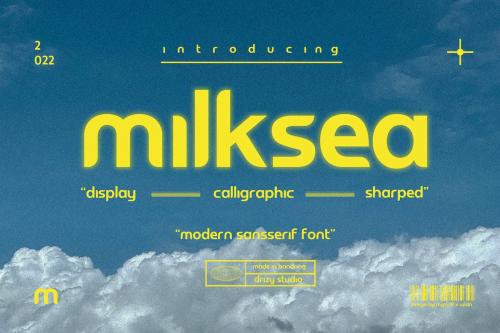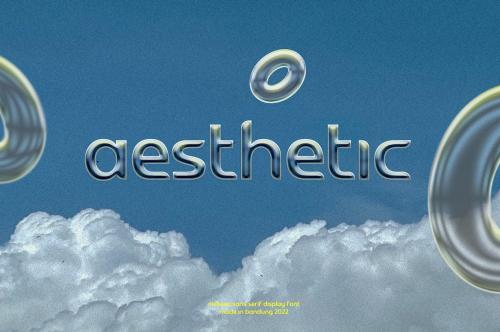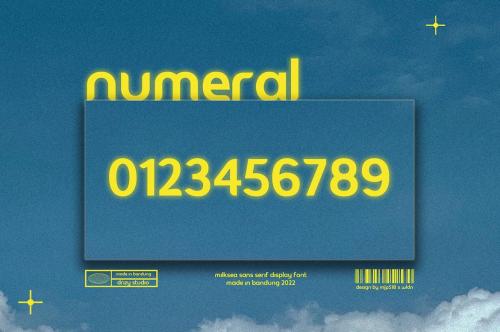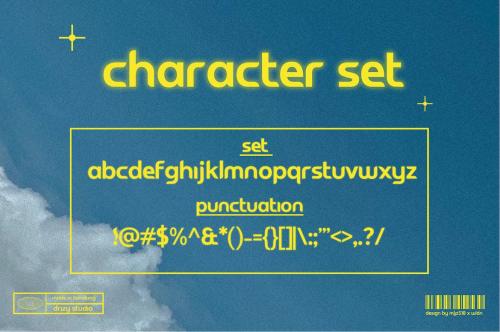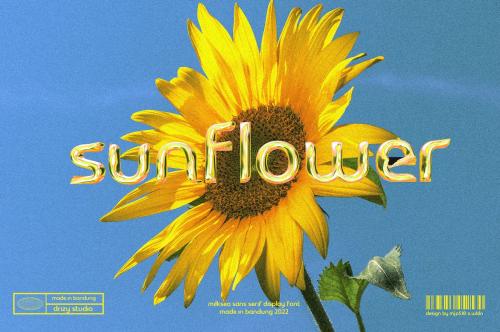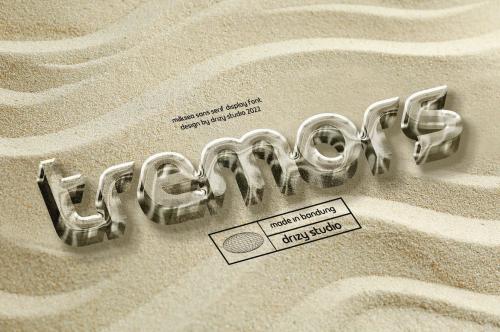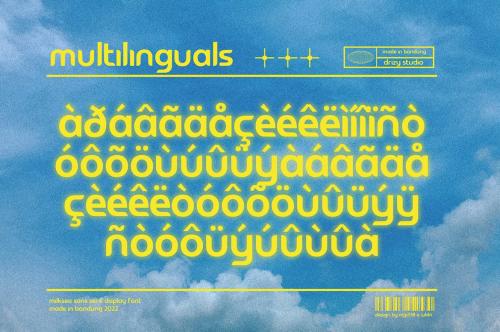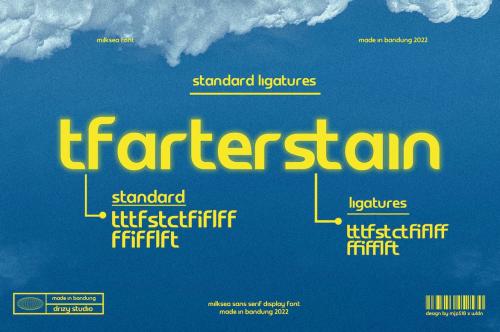
现代无衬线字体:Milksea
Milksea - Modern Sans Serif Font
Milksea is a Modern Sans Serif Font from Drizy studio. Offering all the basic styles you will need for a modern theme of your project. Milksea Features: Uppercase & Lowercase Numeral & Punctuation Multilinguals & Ligatures
Milksea is a Modern Sans Serif Font from Drizy studio. Offering all the basic styles you will need for a modern theme of your project.
Milksea Features:
Uppercase & Lowercase
Numeral & Punctuation
Multilinguals & Ligatures